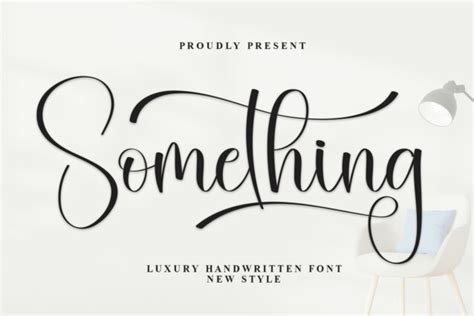
The Something Script Font - Introducing the elegant new the something font duo! For those of you who are needing a touch of elegance and modernity for your designs, this. This font belongs to the “the. “the something regular” is a charming handwritten script font designed by dmitriychirkov.
“The Something Regular” Is A Charming Handwritten Script Font Designed By Dmitriychirkov.